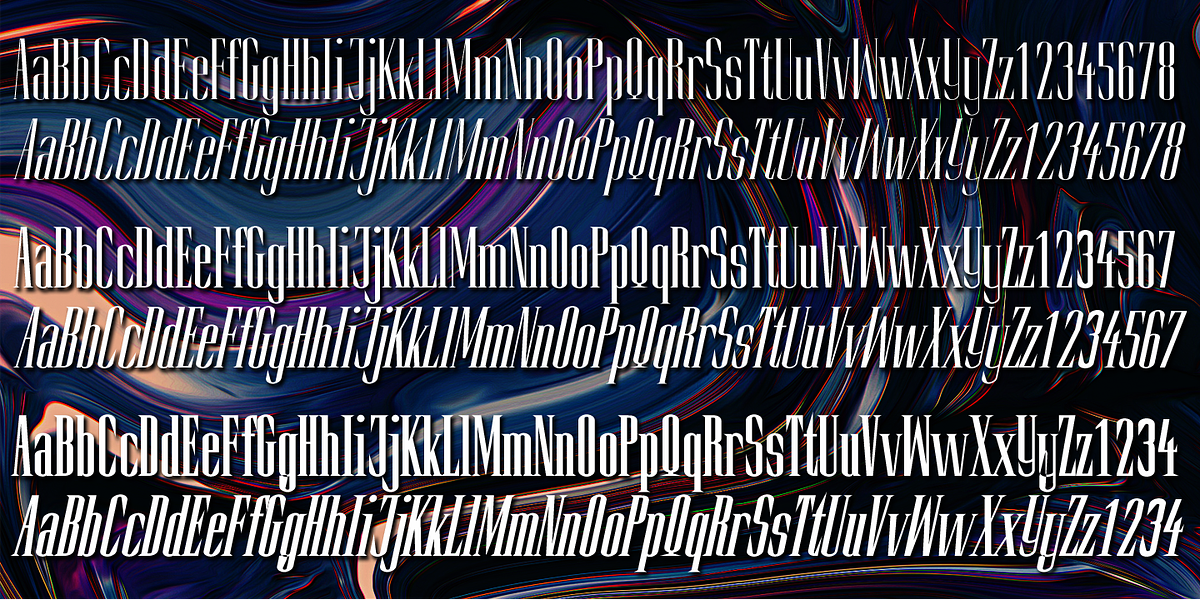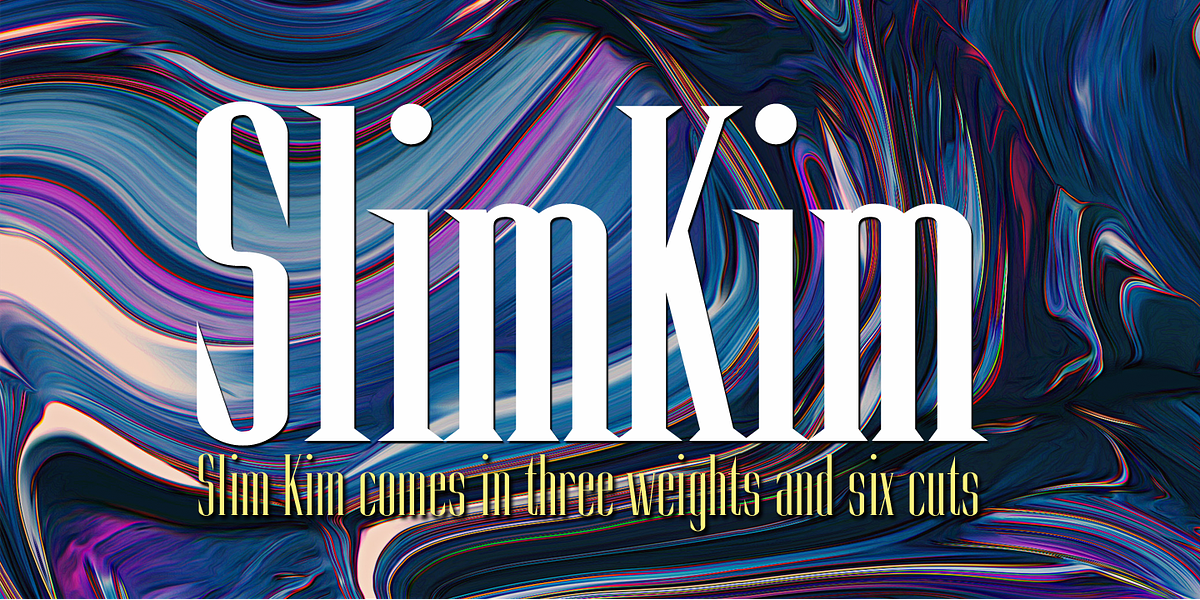
Slim Kim
This font is a modern serif with distinctive spiky serifs. Its slim design makes it well-suited for headlines and display uses where a sharp, elegant look is desired.